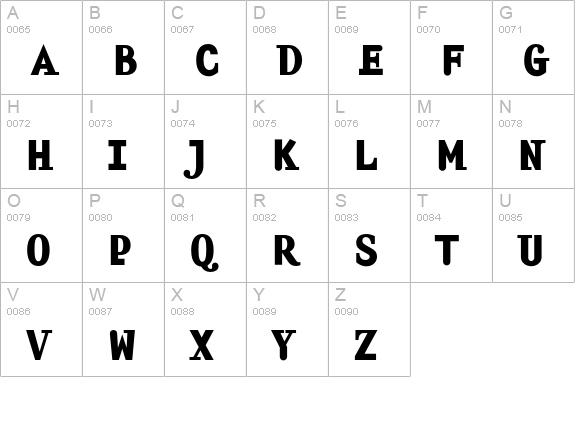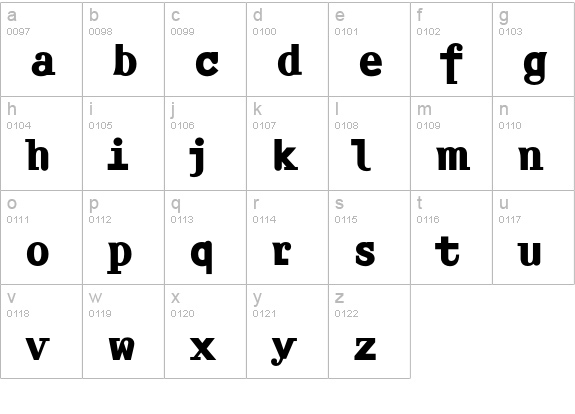
Amplifier-Bold is a strong, high-contrast variant in the Amplifier typeface family \xE2\x80\x94 well suited to headlines, attention-grabbing titles, and strong calls-to-action.
Amplifier-Bold font is a sleek and modern typeface that exudes confidence and power. With its bold and impactful design, this font is perfect for making a statement in your projects. Whether you're creating eye-catching headlines, striking logos, or powerful designs, Amplifier-Bold font is sure to grab attention. What's even better is that Amplifier-Bold font is available for free download at FontsMarket.com. That's right, you can elevate your designs with this stunning font without spending a penny. Don't miss out on the opportunity to add this versatile and stylish typeface to your font collection. Download Amplifier-Bold today and unleash your creativity!